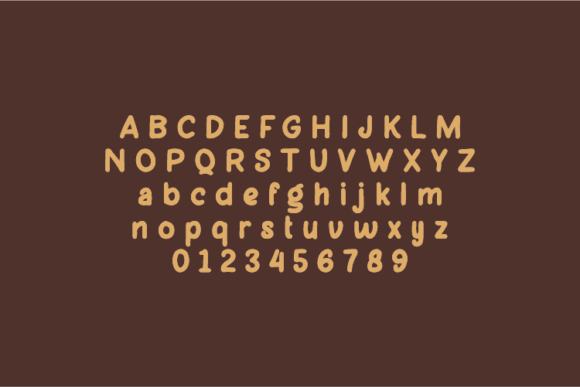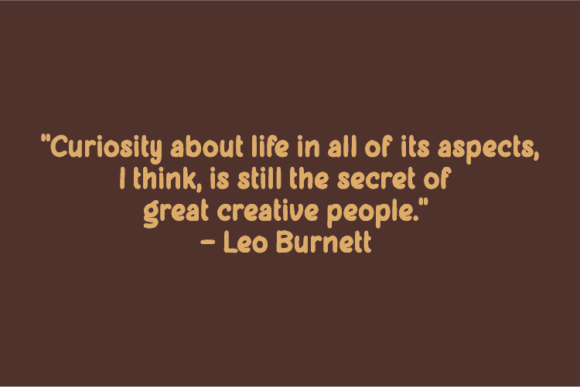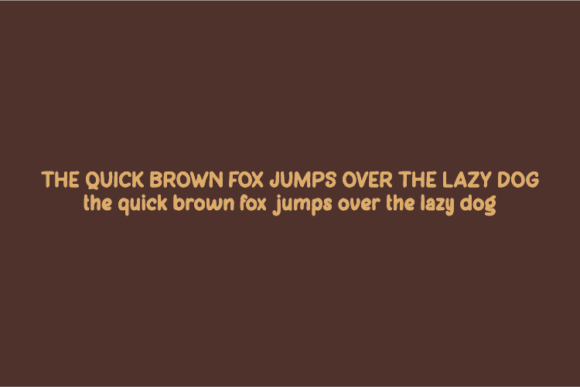
Introduction to Pignolata Font
Pignolata is a natural sans serif font without changing a single node in each character’s indentation.
This makes this font very interesting and unique Perfect for quotes, notes, tees, and any product design.